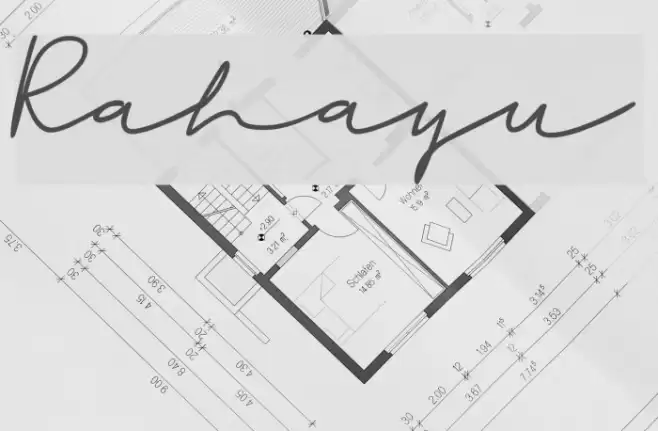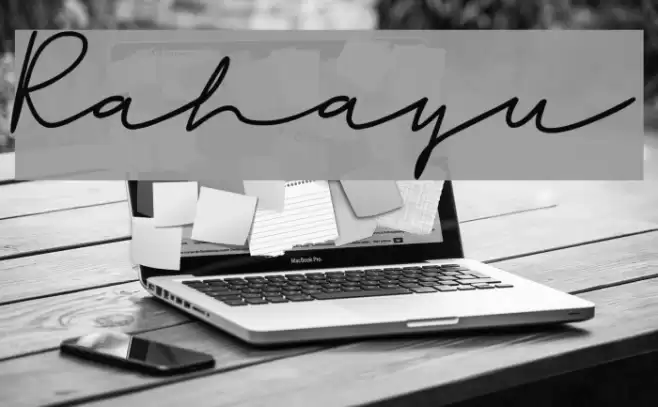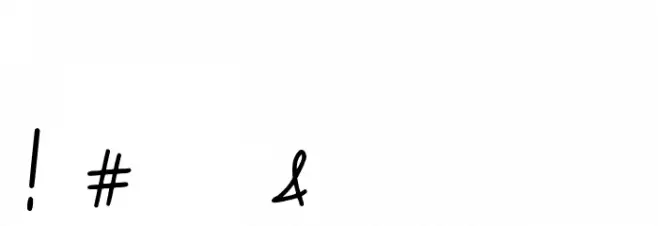
Rahayu Font
Rahayu Description
This font features a flowing, cursive style that mimics elegant handwriting. The letters are connected, giving it a smooth and continuous appearance. The strokes are consistent in thickness, creating a harmonious and balanced look. The uppercase letters are slightly larger and more pronounced, while the lowercase letters maintain a consistent baseline, enhancing readability. The font's overall aesthetic is both sophisticated and approachable, making it suitable for a variety of design projects. The special characters are seamlessly integrated, maintaining the font's cohesive style.
A flowing, cursive font with elegant, connected letters from Uncategorized fonts.
- Proposed Projects: Ideal for wedding invitations, personal branding, greeting cards, and elegant logos.
- Overall Style: Elegant
- Use Case: Logos, Invitations, Personal Branding